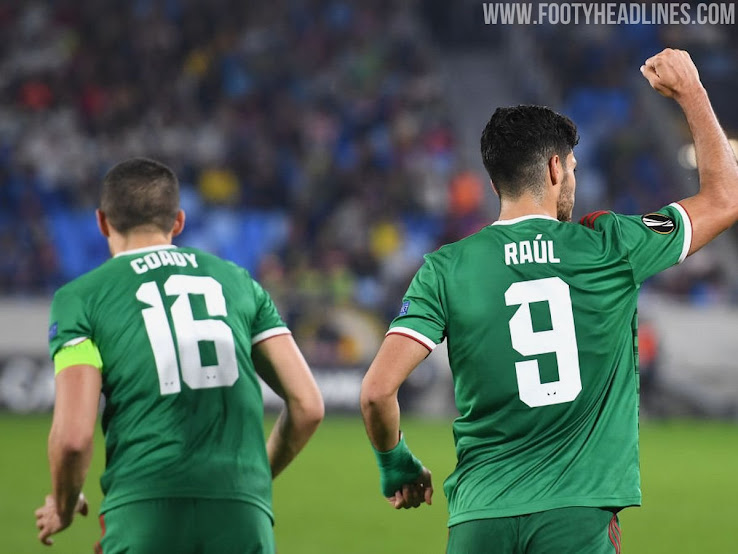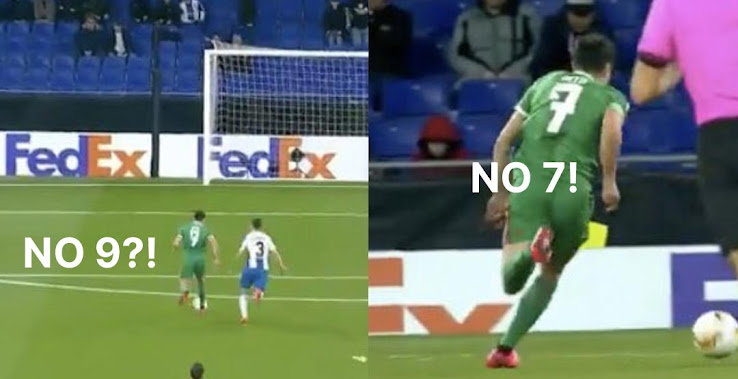
Wolves Gets Smashed For Custom Kit Font In Europa League
Wolverhampton Wanderers faced Greece side Olympiakos in Thursday's first leg of the UEFA Europa League Round of 16. It has been a remarkable foreign campaign for Wolves so far, with "one exception" - their kit numbers.
Wolverhampton Wanderers 2019-2020 Europa League Kit Font
The Wolverhampton Wanderers 2019-20 kit typeface has been exclusively designed for the club by design agency SomeOne. Designed as part of its new brand identity upon promotion to the Premier League, tt features distinctive elements of the club’s iconic crest, most prominently its unique wolf’s eyes.
However, while the Wolves font is definitely unique and looks quite good with the kit, there is a problem with it - it is easy to mix up different numbers. In example, the No.7 of Neto looks like a No. 9, and the No.9 looks like a No.8 from distance as well.